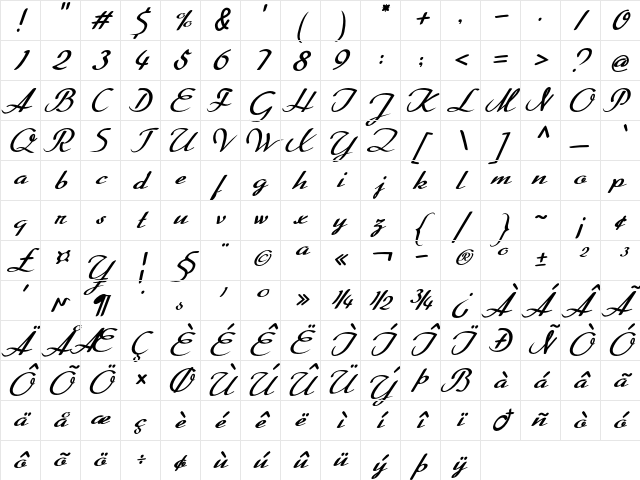
Lemillon Bold Italic
Design Context for Lemillon
Lemillon is a composed and adaptable typeface that performs quietly and consistently across a wide range of design contexts. The slanted form adds forward momentum and visual energy. Its bold stroke weight gives it real presence on the page.
Pro Tip: Use Lemillon for emphasis, pull quotes, and subheadings where its slanted energy can add rhythm to the layout.